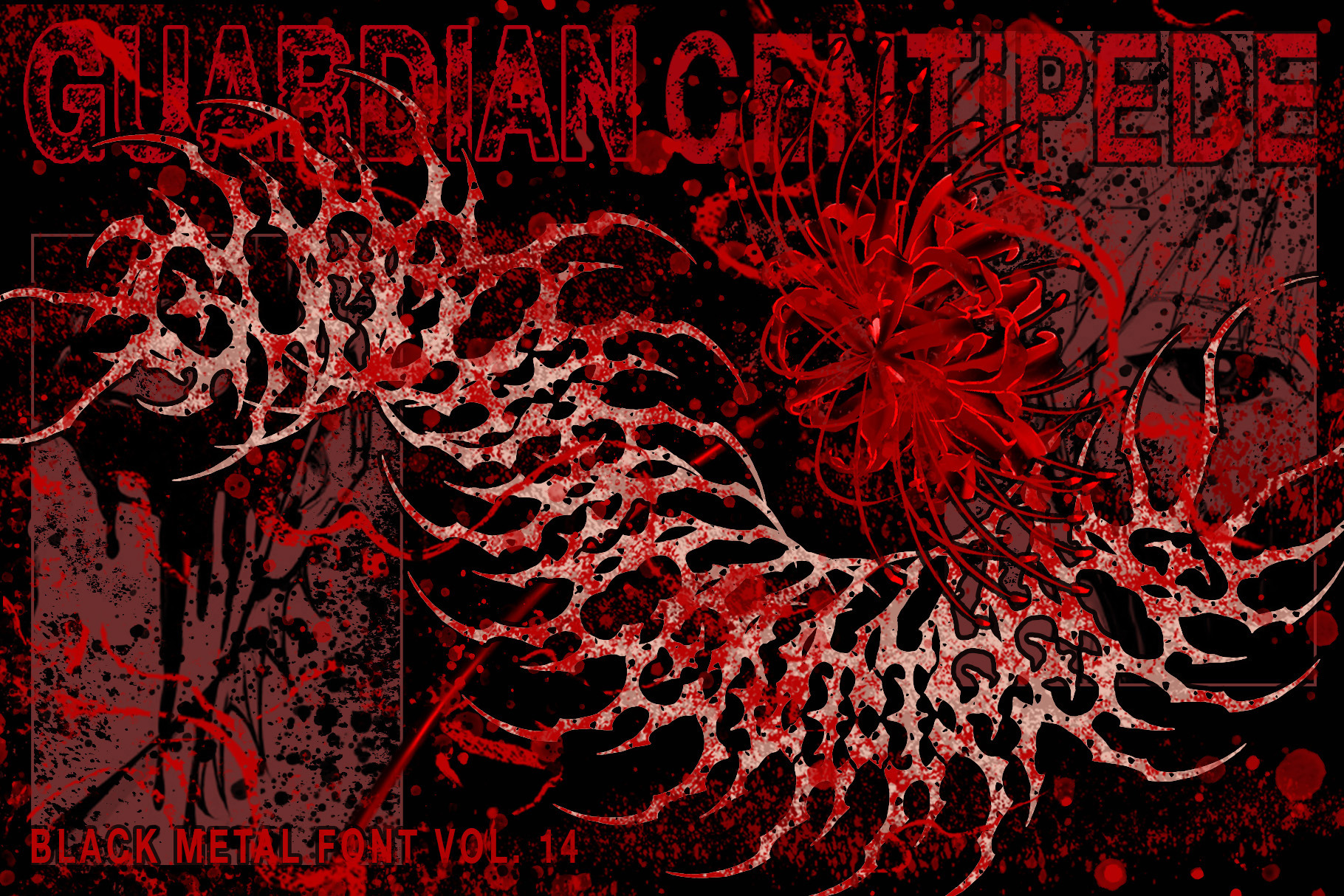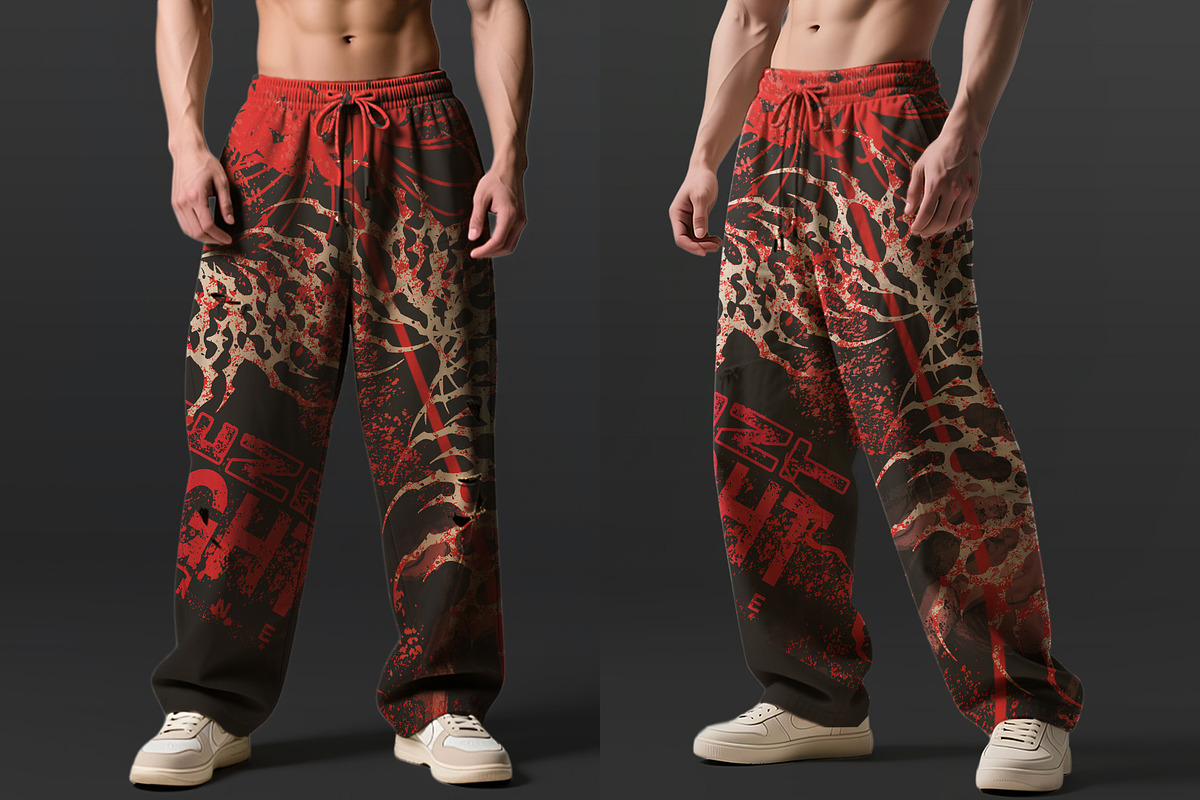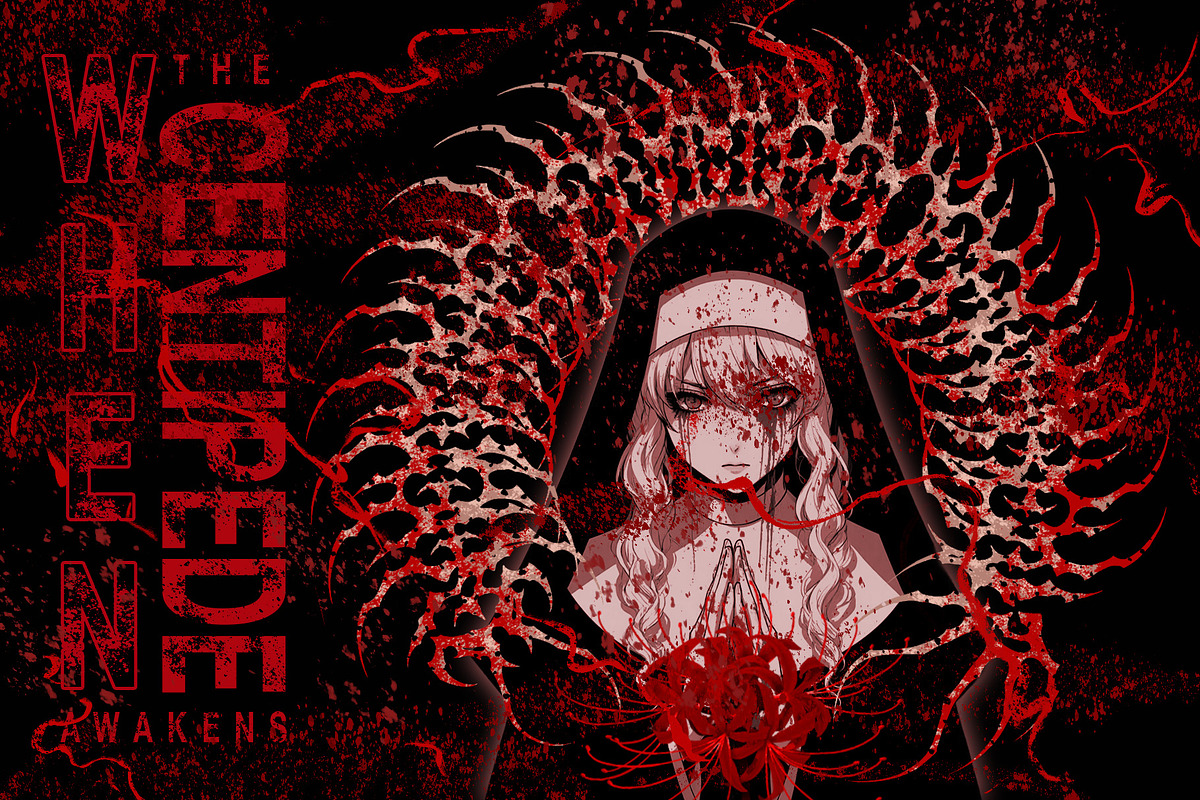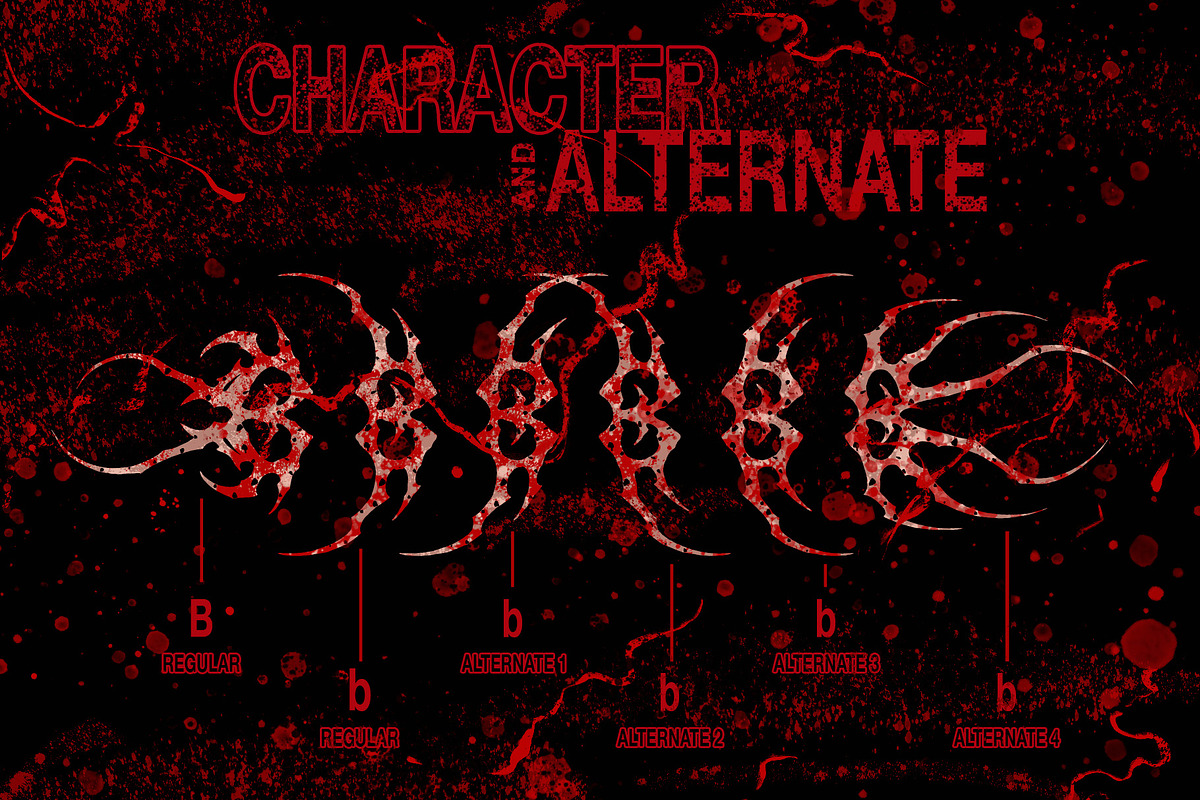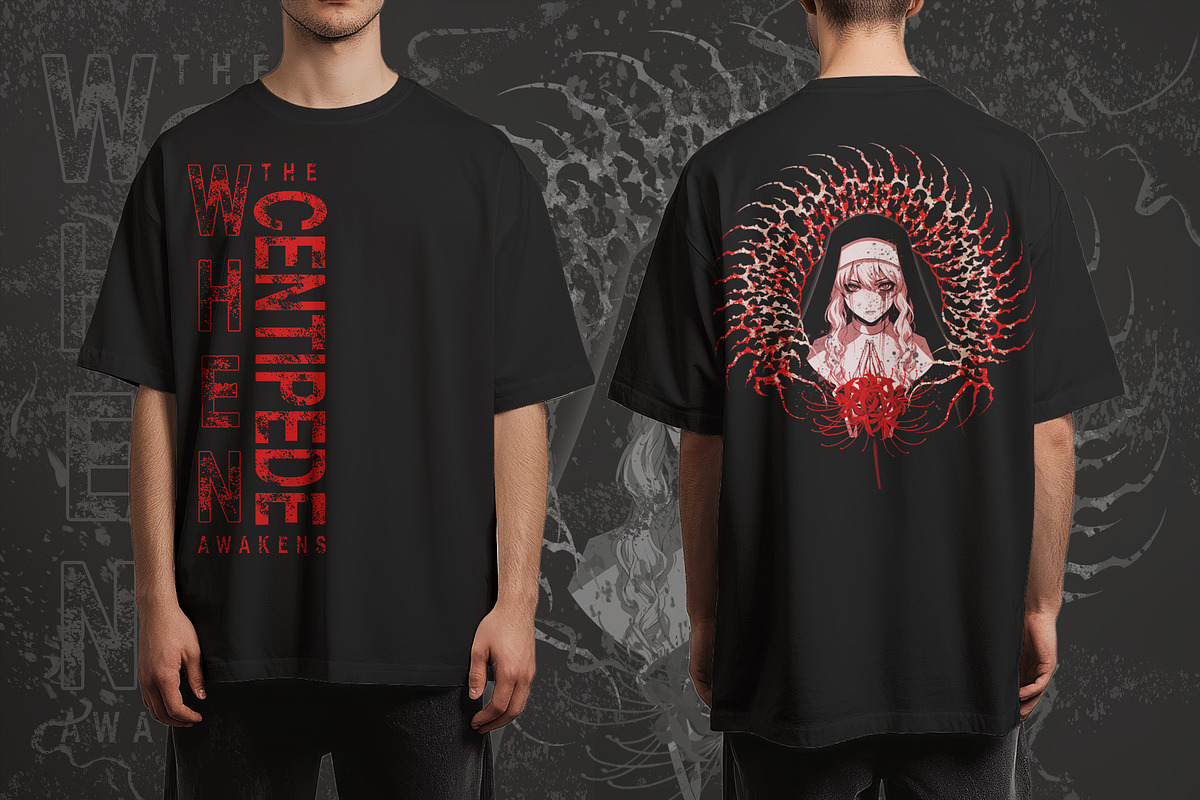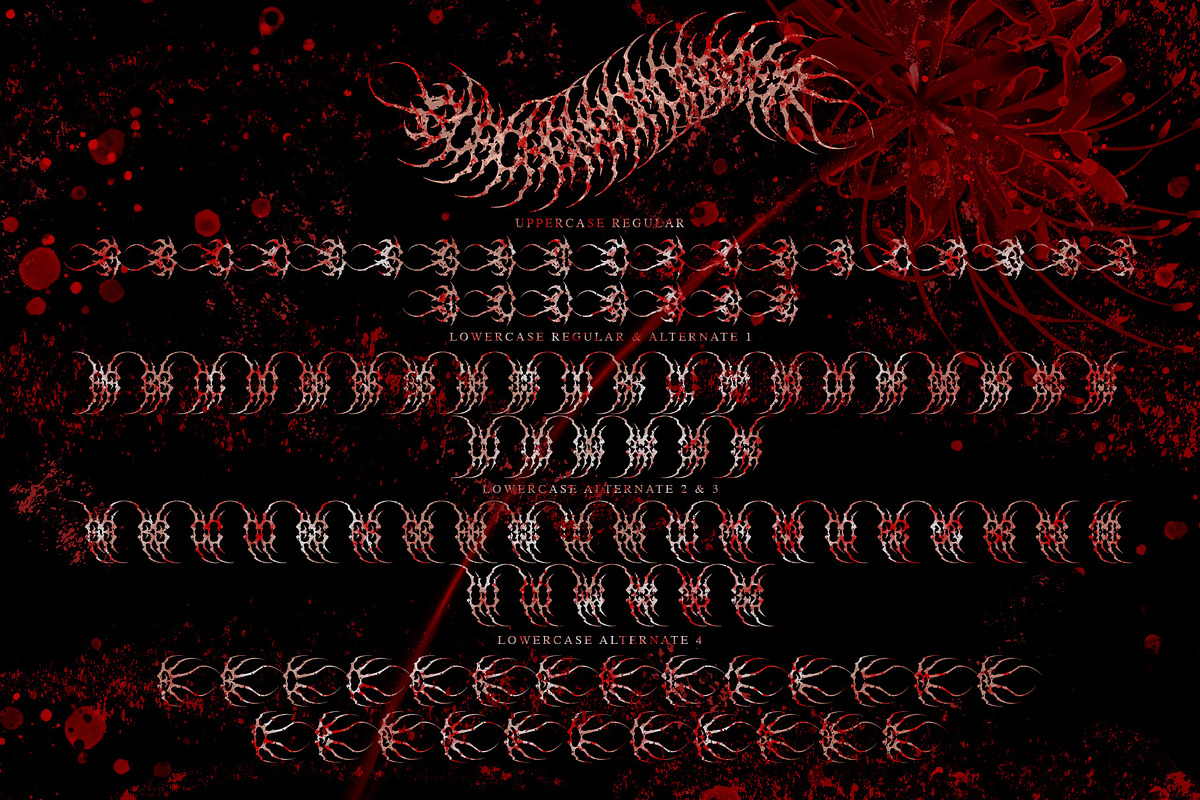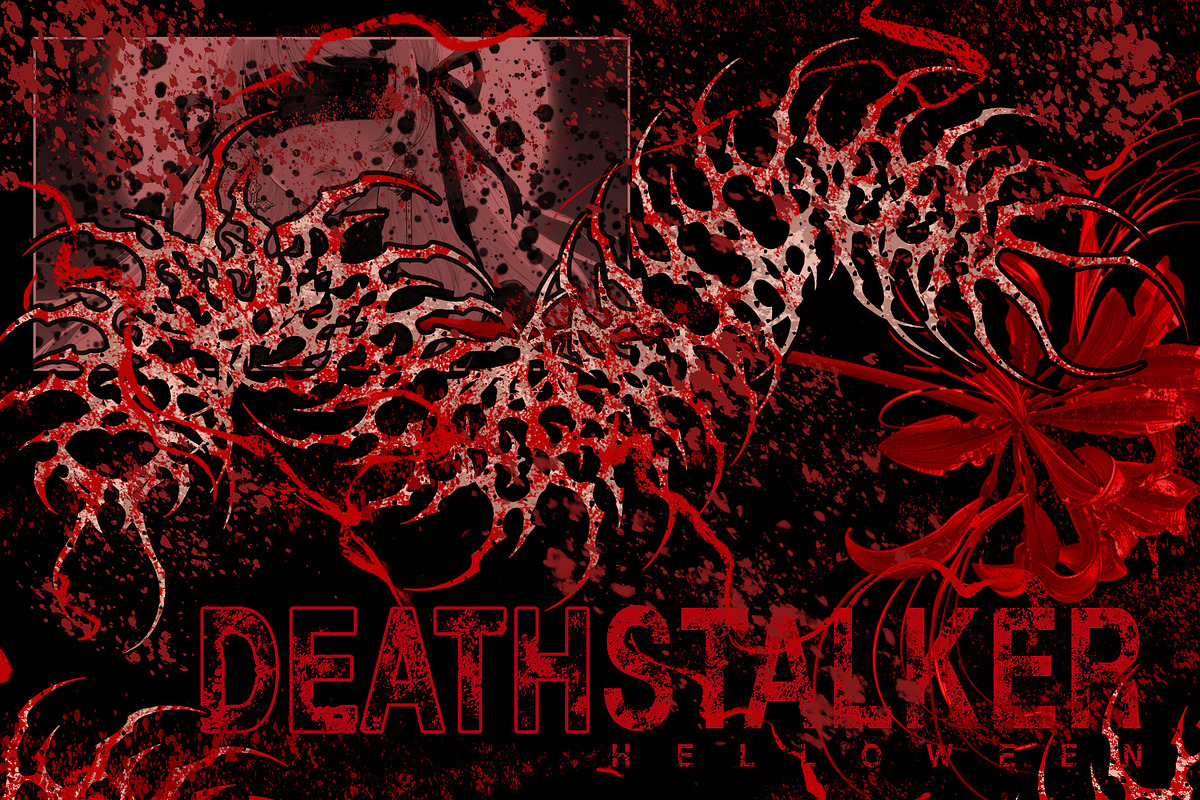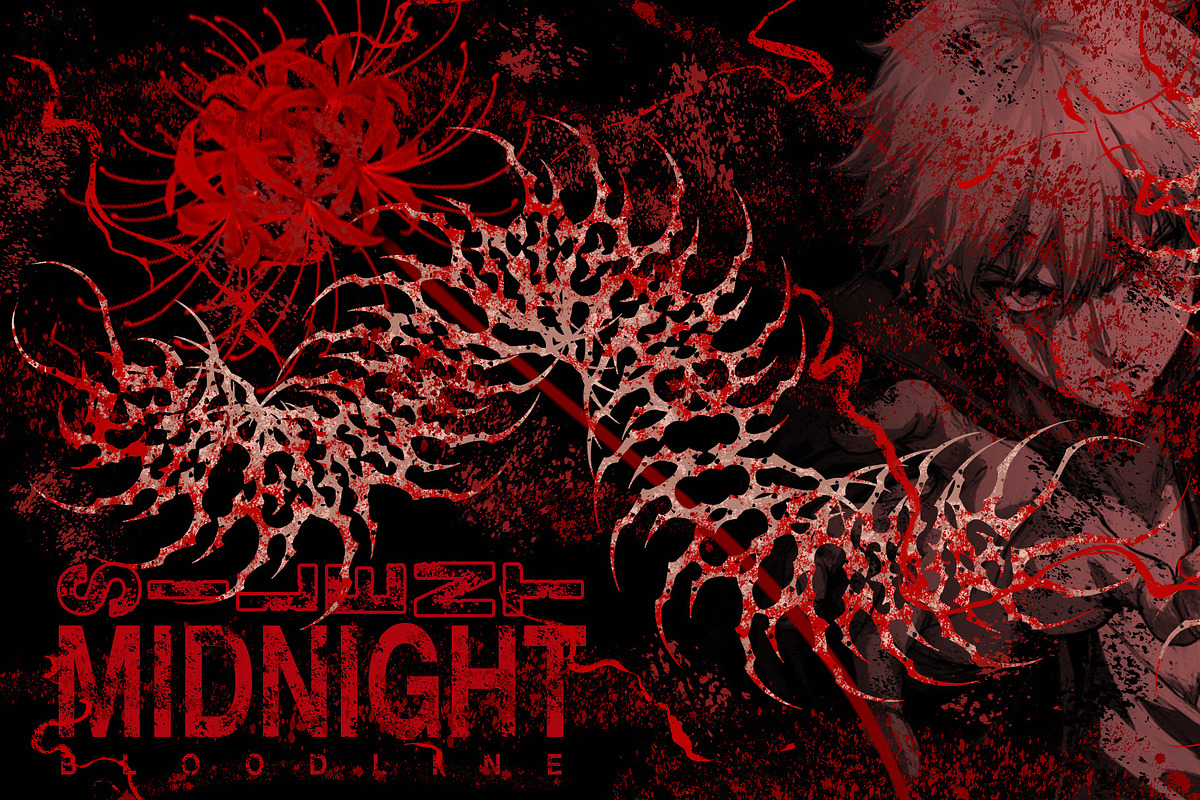
Guardian Centipede-Black Metal Font
Guardian Centipede combines the style of black metal logos with the shape of centipedes, with letters connected to each other and variations of centipede legs on each letter. It gives a horror, cool, and scary impression.
This font is a black metal font that has a realistic black metal logo feel. This font is rich in variations, offering several alternatives for each letter.
Guardian Centipede font is suitable for band logos, merchandise, apparel, song titles, game titles, and film titles.